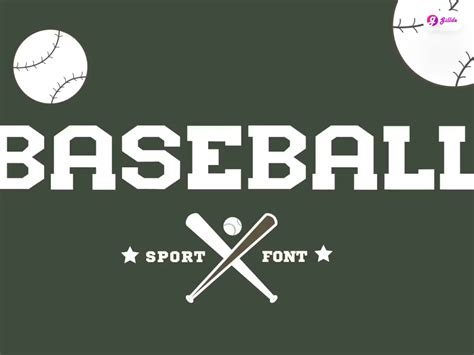
Download Baseball Fonts: Free & Stylish Options
Hey guys! Are you on the hunt for some awesome baseball fonts ? Maybe you’re designing a team logo, creating a sports-themed website, or just want to add a little bit of that classic baseball vibe to your projects? Well, you’ve come to the right place! Finding the perfect font can really make your designs pop, and luckily, there are tons of fantastic options out there, many of which are available for free download . Let’s dive into the world of baseball fonts and explore some of the best choices available to you. I’ll cover where you can find these fonts, how to download them, and even some tips on how to best use them to make your designs look like they came straight from the stadium. Get ready to knock it out of the park with your new typography skills! We’ll explore fonts that mimic the look of official team jerseys, fonts that capture the energy of the game, and fonts that simply scream “baseball”. So, whether you are a seasoned designer or a newbie, you’ll find something cool here. This guide will help you easily download and implement these fonts into your projects. Prepare to transform your designs into a home run!
Why Choose Baseball Fonts? The Allure of the Diamond
So, why bother with baseball fonts in the first place? Well, the beauty of these fonts lies in their ability to instantly evoke the spirit of the sport. They bring a sense of nostalgia, excitement, and a touch of Americana to any design. Think about it: the bold, clean lines, the slight curves, and the often-vintage feel. They capture the essence of baseball. They are perfect for a wide range of projects, from sports team logos and merchandise to event flyers and websites. Baseball fonts aren’t just for designs explicitly about baseball, they can also bring a sense of history, tradition, and a little bit of grit. If you’re designing a retro-themed project, a baseball font can provide that finishing touch that transports you back in time. On the other hand, if you’re trying to reach a young demographic with your brand, baseball fonts offer a playful and approachable design style. Baseball fonts are versatile enough to work in both cases! Using a baseball font can also signal to your audience that your brand values teamwork, sportsmanship, and a winning attitude. Furthermore, baseball fonts are often designed to be highly readable, making them ideal for headlines, titles, and other prominent text elements. This is especially important if you’re aiming for a strong visual impact. The right font can really make or break a design, and in the world of baseball, the font is crucial to getting your message across clearly and with style. That’s why choosing the right baseball font is such an important decision. Think about the overall message and feeling you want to convey, and then select a font that perfectly aligns with your vision.
Baseball Fonts: Versatility in Design
Baseball fonts aren’t just limited to the obvious baseball-related projects. Here are a few examples of how versatile they can be:
• Sports Logos: Perfect for creating logos for baseball teams, softball teams, and even general sports-related businesses.
• Event Flyers: Use baseball fonts to announce baseball games, tournaments, or sports-themed events.
• Website Design: Incorporate baseball fonts into website headers, titles, and other text elements to create a cohesive theme.
• Social Media Graphics: Use these fonts to create eye-catching social media posts related to sports, fitness, or other related topics.
• Apparel Design: Design t-shirts, jerseys, and other apparel items with baseball fonts.
• Print Materials: Baseball fonts can be used to design posters, banners, and other print materials.
Finding Your Perfect Font: Where to Download Free Baseball Fonts
• BeFonts: This website offers a wide selection of fonts, including a variety of baseball fonts. They have a well-organized website, and you can easily navigate and find the perfect font for your project. BeFonts is a good option if you’re looking for a specific style or theme.
• 1001 Fonts: Another great source for a variety of fonts, including baseball fonts. They offer a simple and easy-to-use interface to search and download the fonts that you’re looking for. The website is regularly updated with new fonts.
The Final Inning: Making Your Designs a Grand Slam
There you have it, guys! You now have all the tools you need to find, download, and use some awesome baseball fonts in your projects. Whether you’re designing for a sports team, a special event, or just want to add a touch of baseball to your creative work, these fonts will surely help you hit a home run. So, go out there, download those fonts, and start designing. Have fun, be creative, and most importantly, enjoy the process! Remember, the right font can transform a project from ordinary to extraordinary. So, step up to the plate and knock it out of the park with your next design. And as always, remember to respect the font licenses and download from trusted sources. Happy designing, and here’s to creating some grand slam designs!